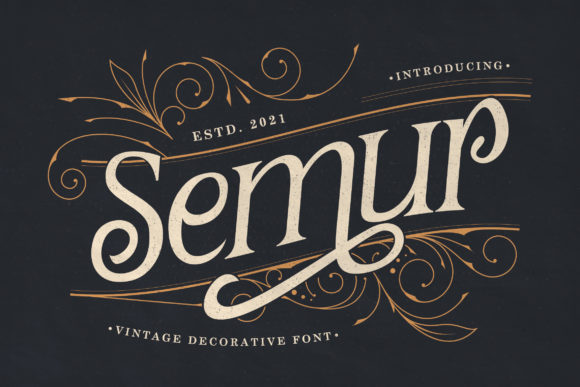
Introduce a remarkable new font to your digital toolbox – Semur Font, the crown jewel of TypeFactory's serif font family. An embodiment of elegance and assertiveness, this vintage-styled font will sweep you off your feet with its captivating charm.
Unleash the Power of Semur Font:
- Adorn your printed handouts with a touch of timeless sophistication.
- Elevate your branding endeavors to new heights.
- Create captivating labels that demand attention.
- Craft stunning digital designs that leave a lasting impression.
- Let your imagination run wild with countless other creative possibilities.
Semur Font: Beyond Aesthetics
With its PUA encoding, Semur Font unlocks a world of possibilities, granting you effortless access to a treasure trove of glyphs and swashes at your fingertips. Open the gates to a realm of creative expression like never before.
Dare to Embark on a Creative Journey
Whether you're a seasoned designer or just starting your creative journey, Semur Font is your steadfast companion. Allow this font to guide you as you forge breathtaking designs that captivate and inspire.
The Perfect Font for Every Occasion
From heartfelt personal letters to polished business proposals, Semur Font adapts seamlessly to any occasion. Witness the transformation as your words dance across the page, adorned with timeless beauty and unwavering grace.
A Font that Resonates with Your Soul
Semur Font is more than just a collection of letters; it's an extension of your creativity, an expression of your individuality. Let your designs soar to new heights as Semur Font harmonizes with your creative vision.
Step into the Spotlight with Semur Font
Make a bold statement with Semur Font. Let your designs shine with a radiance that commands attention and leaves a lasting impression. Your creations will speak volumes, captivating your audience with their timeless elegance.